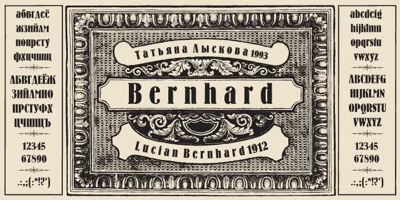
Bernhard Font
Bernhard Font is ideal for Art Deco revival projects, luxury fashion brands, vintage jewelry catalogs, elegant wedding invitations, sophisticated magazine covers, premium wine labels, classical concert programs, and refined cultural institution materials.
What makes Bernhard Font exciting is its timeless elegance that captures the sophisticated artistry and decorative refinement of early 20th-century design through graceful, ornamental letterforms. This distinguished typeface features flowing curves with Art Deco influences that evoke the glamorous sophistication and artistic excellence of the 1920s golden age, making it perfect for projects requiring both historical authenticity and contemporary luxury appeal in their prestigious communications.
The Bernhard Font family includes regular and italic weights, plus decorative alternates and Art Deco-inspired ornamental elements that enhance the elegant aesthetic with period-appropriate styling and sophisticated typographic flourishes for luxury applications.
This sophisticated typeface delivers exceptional artistic elegance and luxury sophistication, making Bernhard Font a treasured resource for high-end design and cultural projects. The font's refined character makes it perfect for organizations wanting to convey artistic excellence and sophisticated taste in their brand identity. Luxury fashion houses and cultural institutions particularly appreciate its ability to communicate timeless elegance and artistic heritage instantly to discerning audiences. The artistically designed letterforms ensure superior readability while preserving the glamorous appeal of Art Deco sophistication across all applications from luxury product catalogs to cultural exhibition materials. Whether you're creating materials for prestigious art galleries or developing branding for luxury lifestyle brands, this font provides the perfect combination of historical artistry and contemporary luxury presentation. Creative professionals consistently choose this typeface for projects requiring that ideal harmony between Art Deco elegance and modern sophistication, making it essential for luxury communications that celebrate both artistic heritage and contemporary refinement in today's culturally conscious luxury market.